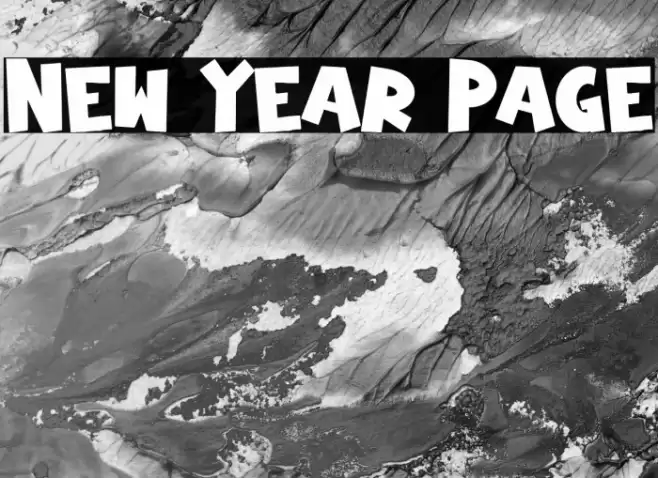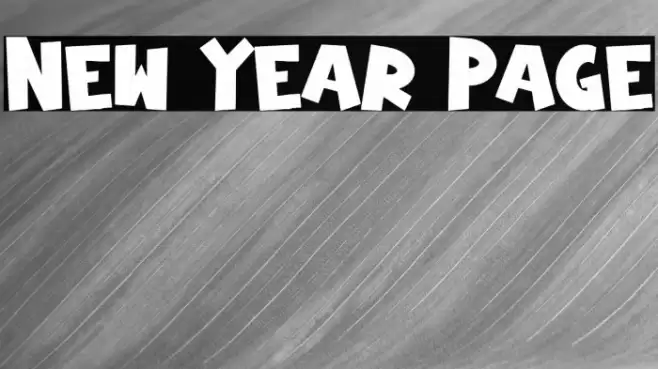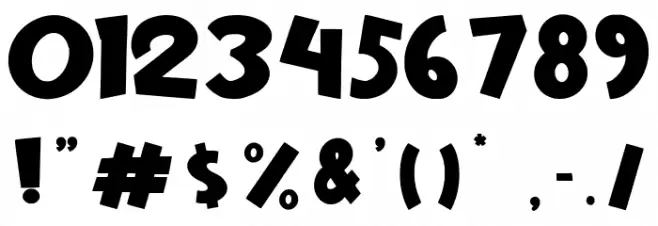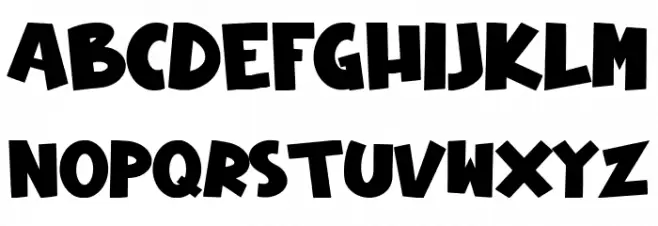
New Year Page Font
New Year Page Description
This bold and playful font features thick, exaggerated strokes with a slightly irregular form, giving it a lively and energetic appearance. The characters are wide and rounded, contributing to a friendly and approachable style. The uppercase and lowercase letters maintain a consistent weight, ensuring readability while adding a touch of whimsy. The numbers and special characters follow the same design principles, making them cohesive with the overall look. This font is ideal for projects that require a fun and engaging aesthetic, such as children's books, party invitations, or playful branding.
A bold, playful font with thick, rounded strokes and a lively, energetic style from Uncategorized fonts.
- Proposed Projects: Children's books, party invitations, playful branding, posters, and social media graphics.
- Width: Expanded
- Overall Style: Playful, Energetic, Fun